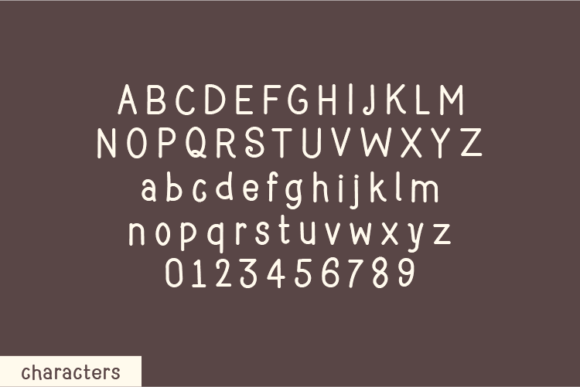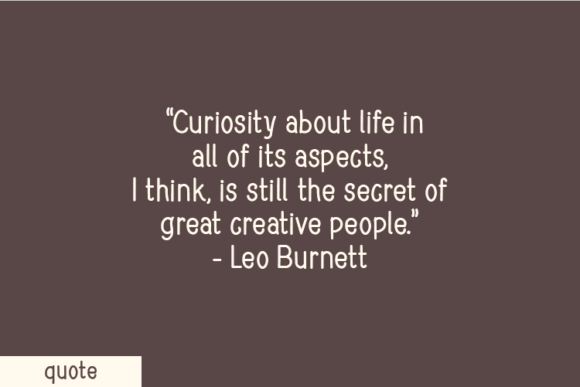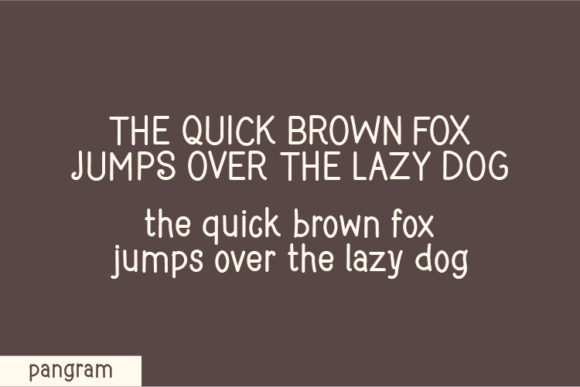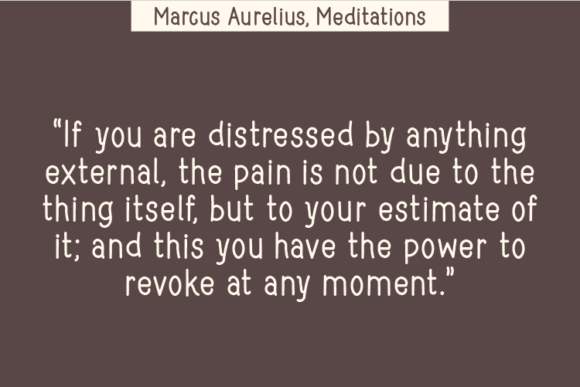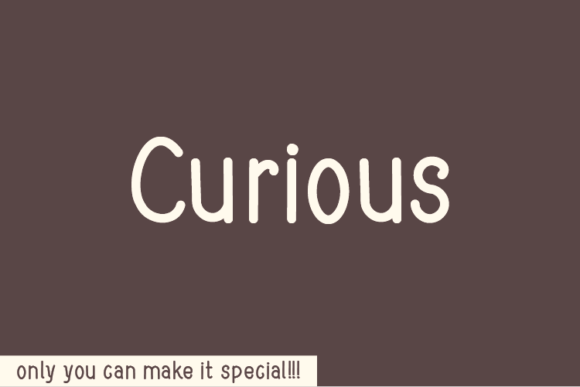
Introducing Curious Font: The Unique Handwritten Font for Creative Designs
Are you tired of using the same old fonts for your designs? Look no further! Curious Font is a game-changer for designers and crafters alike. This natural handwritten font is made without changing a single node in each character’s indentation, making it a truly unique and interesting addition to your design toolkit.
The Story Behind Curious Font
Curious Font is a carefully crafted font that boasts a distinctive, hand-written feel. Unlike other fonts that are created by adjusting nodes and curves, Curious Font is made by preserving the original indentation of each character. This attention to detail results in a font that is both organic and authentic.
What Makes Curious Font So Special?
So, what sets Curious Font apart from other fonts? Here are a few key features that make it a standout:
- Unique Indentation: As mentioned earlier, Curious Font is made without changing a single node in each character’s indentation. This preserves the natural, hand-written feel of the font.
- Natural Look and Feel: The font has a distinctly human touch, making it perfect for designs that require a personal and approachable feel.
- Highly Versatile: Curious Font is suitable for a wide range of design applications, from quotes and notes to tees and product design.
Curious Font is a dream come true for designers and crafters who are looking for a unique and versatile font to add to their collection. Whether you’re creating:
- Quotes and Inspirational Messages: Use Curious Font to add a touch of personality and whimsy to your quotes and inspirational messages.
- Notes and Journal Pages: Add a personal touch to your notes and journal pages with Curious Font’s natural, hand-written feel.
- T-Shirts and Merchandise: Create eye-catching tees and merchandise with Curious Font’s distinctive and stylish design.
- Product Design: Use Curious Font to add a touch of personality to your product designs, from packaging to branding materials.
Tips for Using Curious Font
Here are a few tips for getting the most out of Curious Font:
- Pair with Other Fonts: Experiment with pairing Curious Font with other fonts to create a unique and visually appealing design.
- Play with Size and Color: Don’t be afraid to experiment with different sizes and colors to add depth and interest to your design.
- Use for Headings and Body Text: Curious Font is suitable for both headings and body text, making it a versatile addition to your design toolkit.
| Feature | Benefit |
| Unique Indentation | Preserves natural, hand-written feel |
| Natural Look and Feel | Adds personal touch to designs |
| Highly Versatile | Suitable for wide range of design applications |